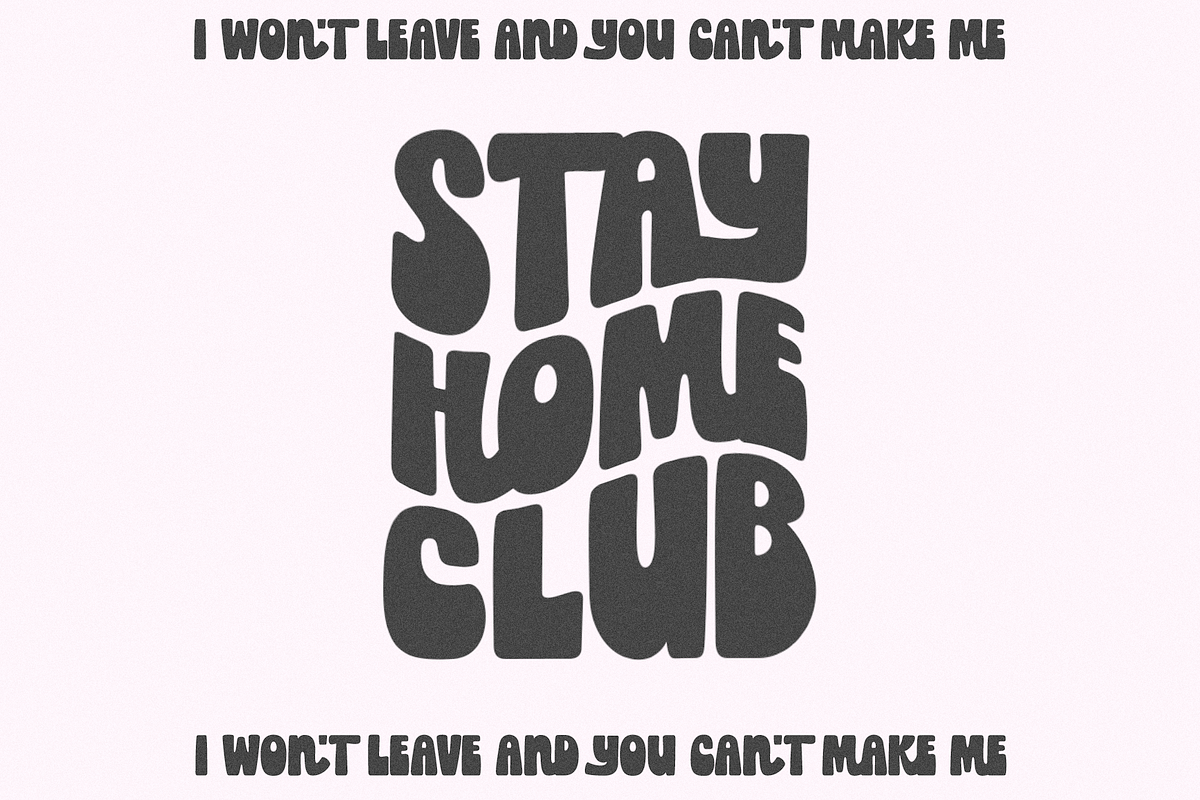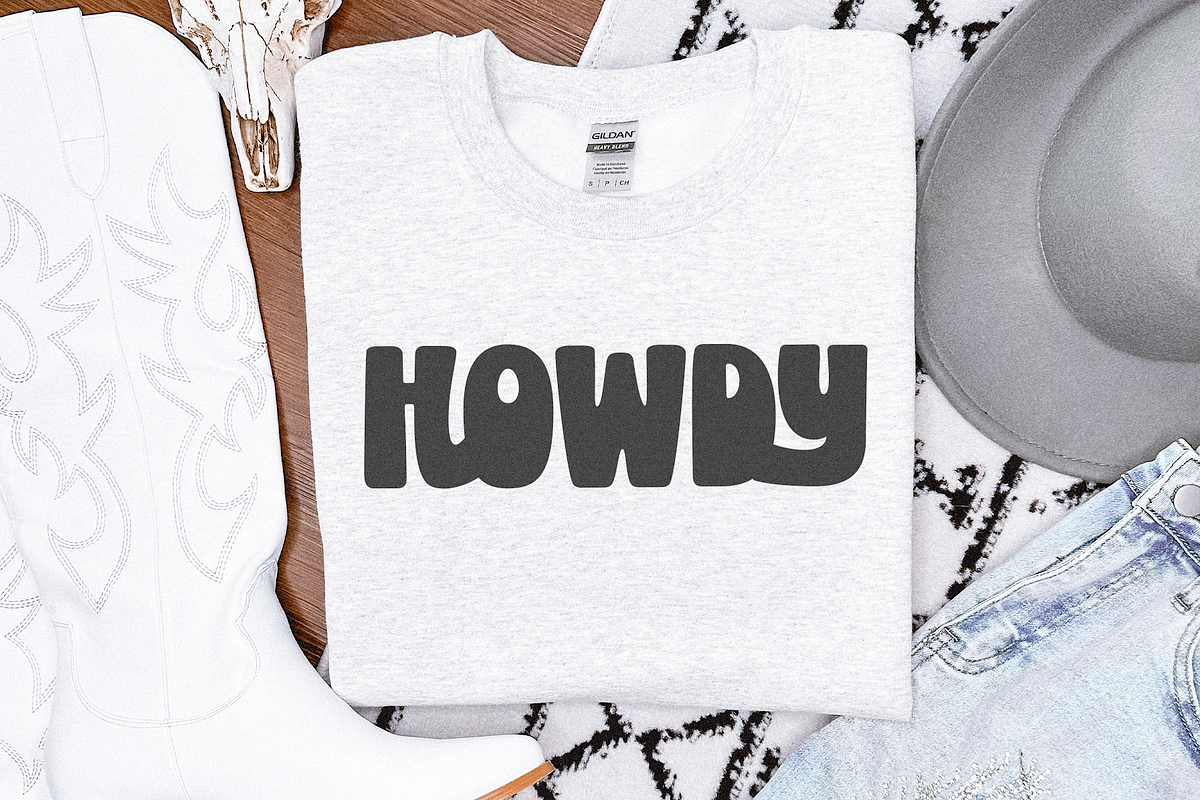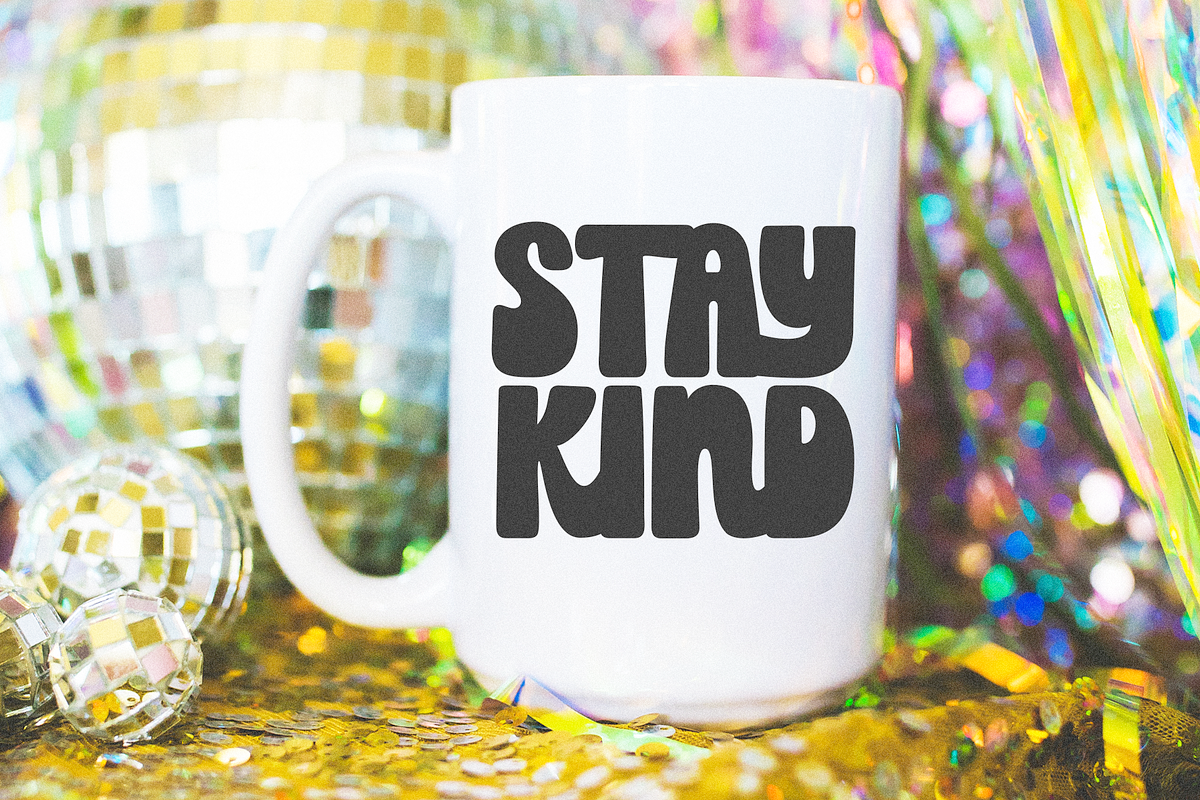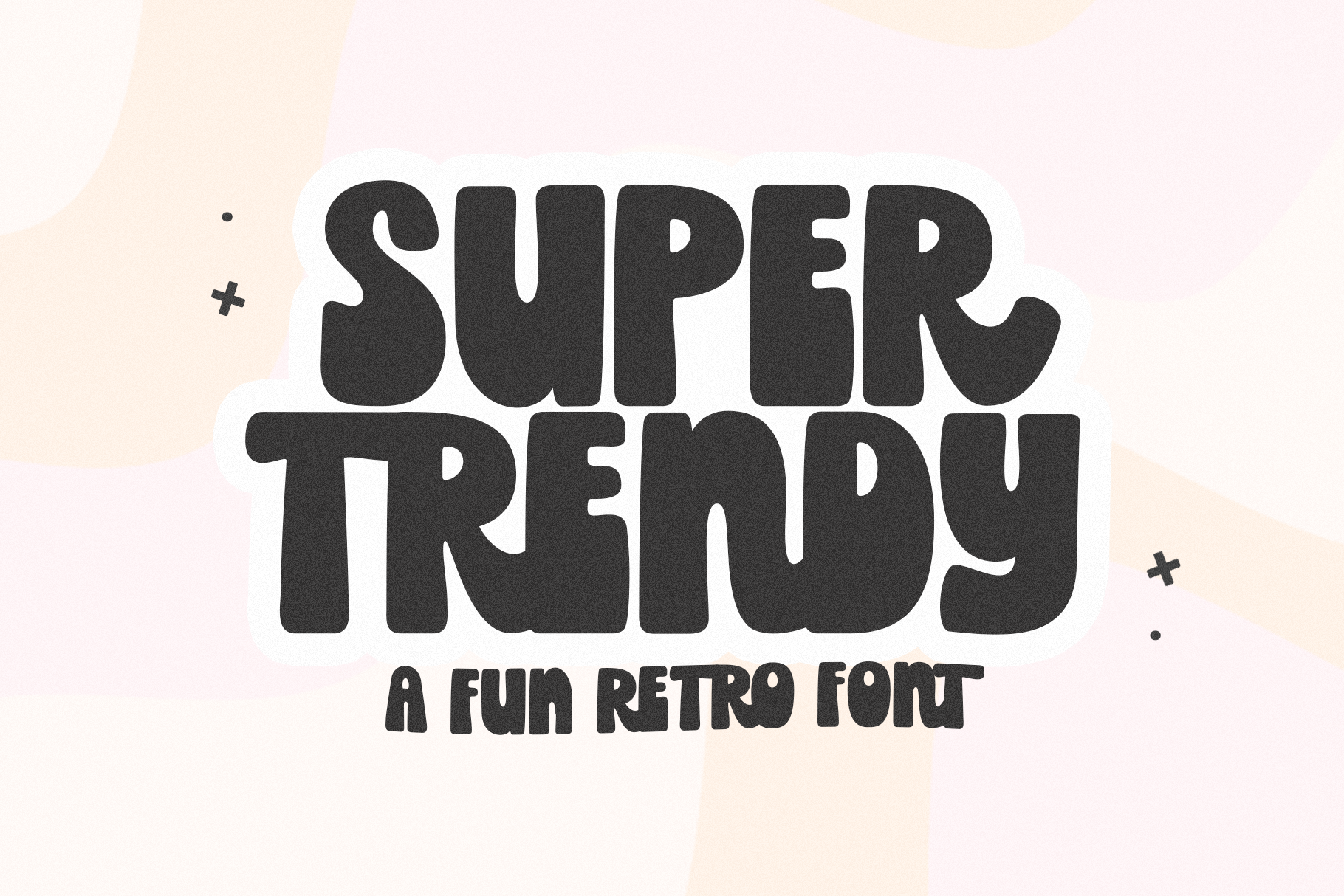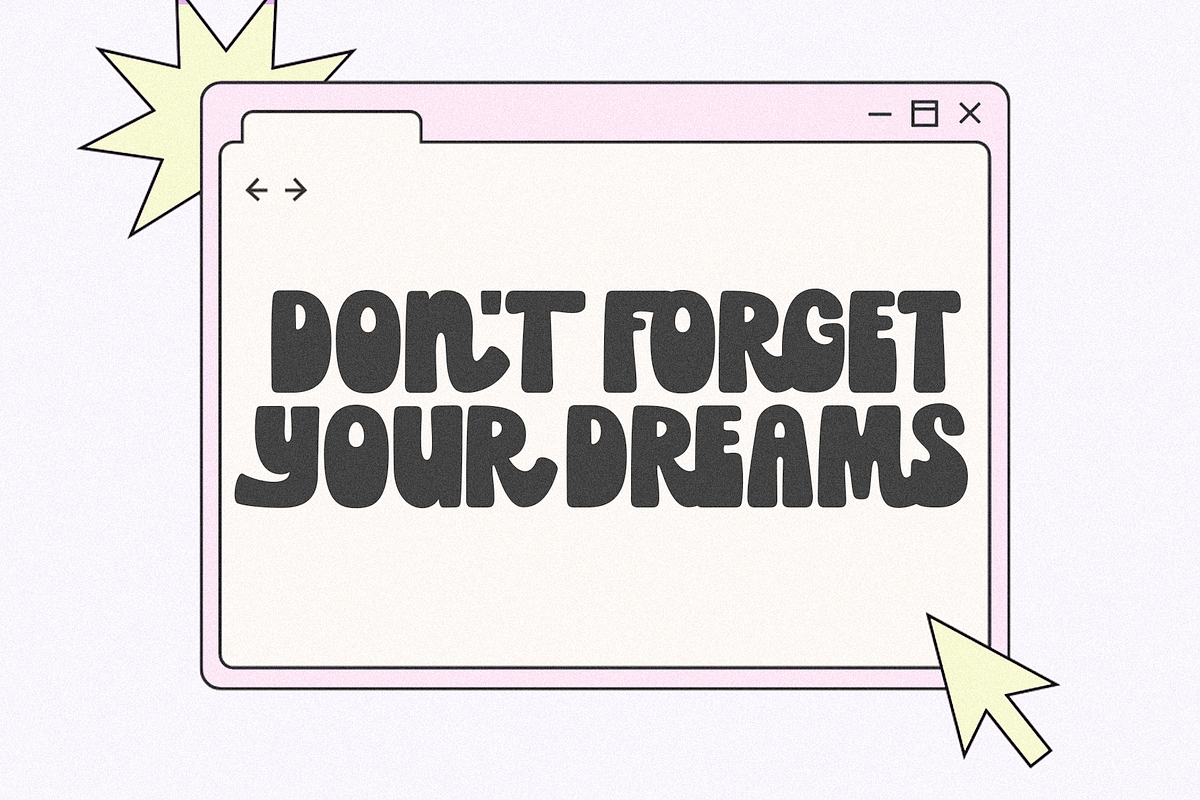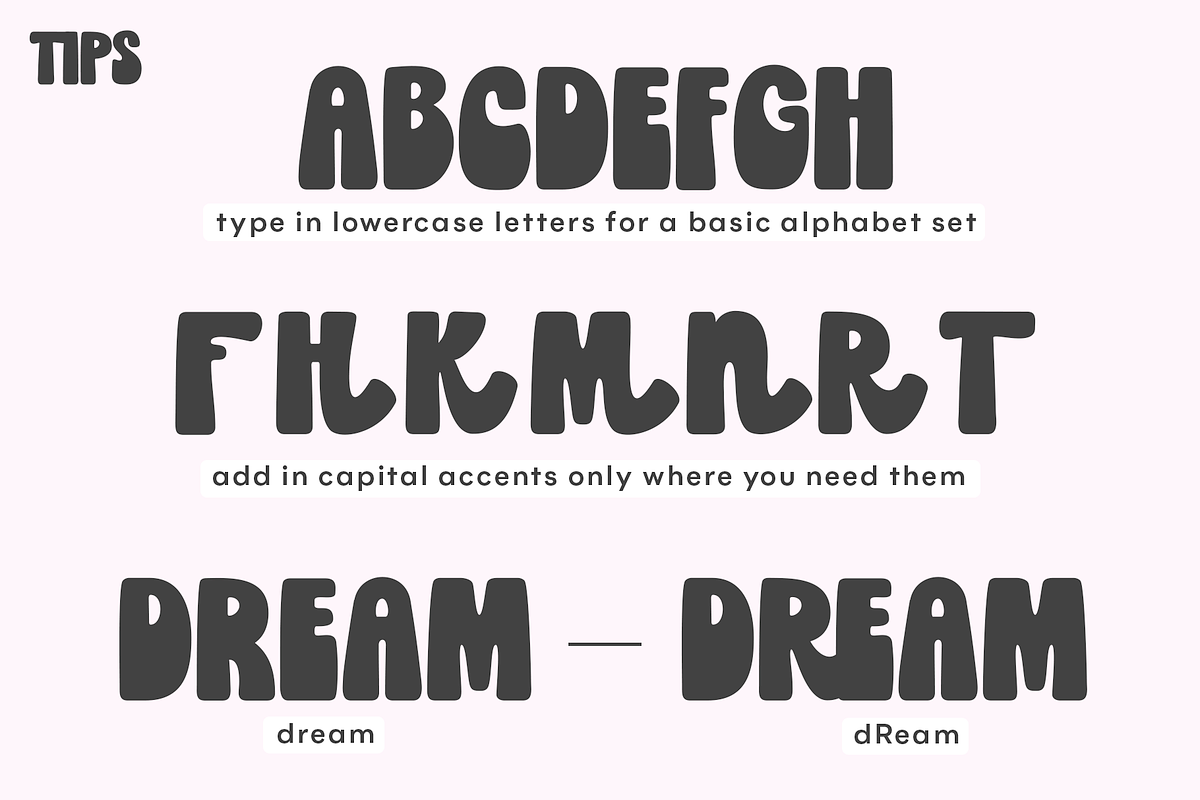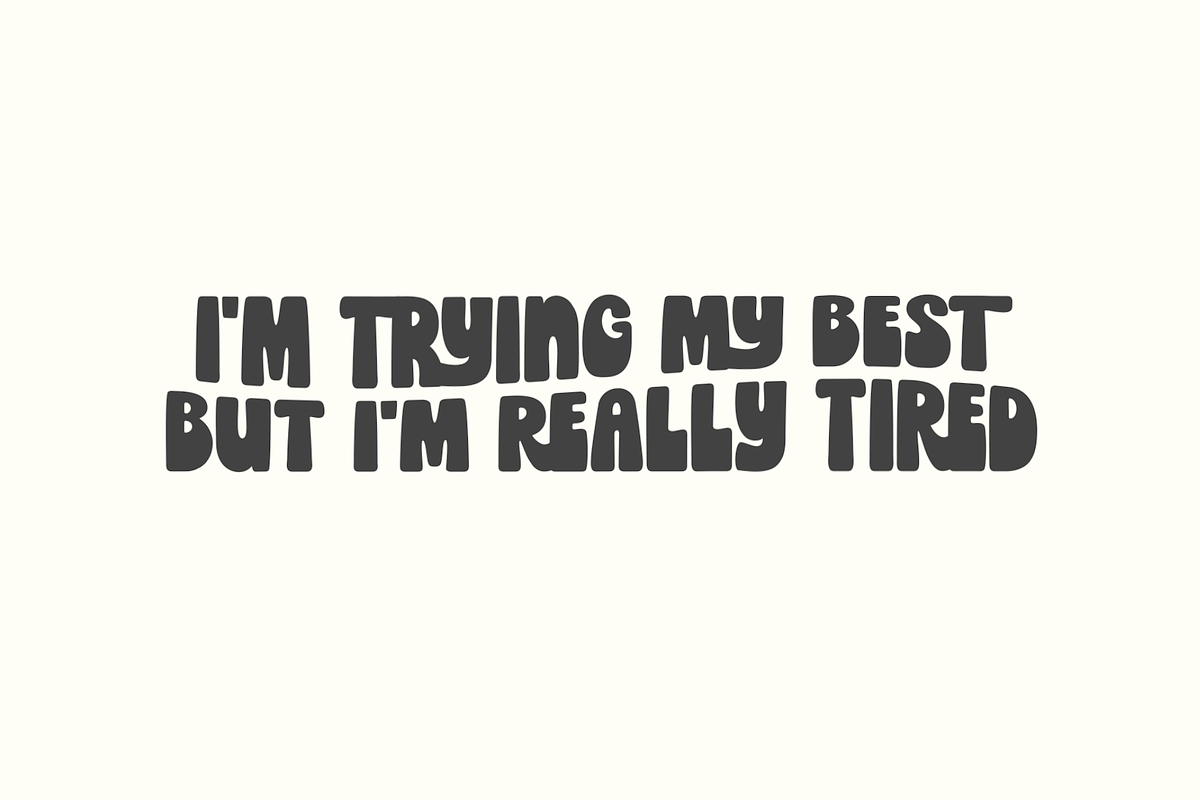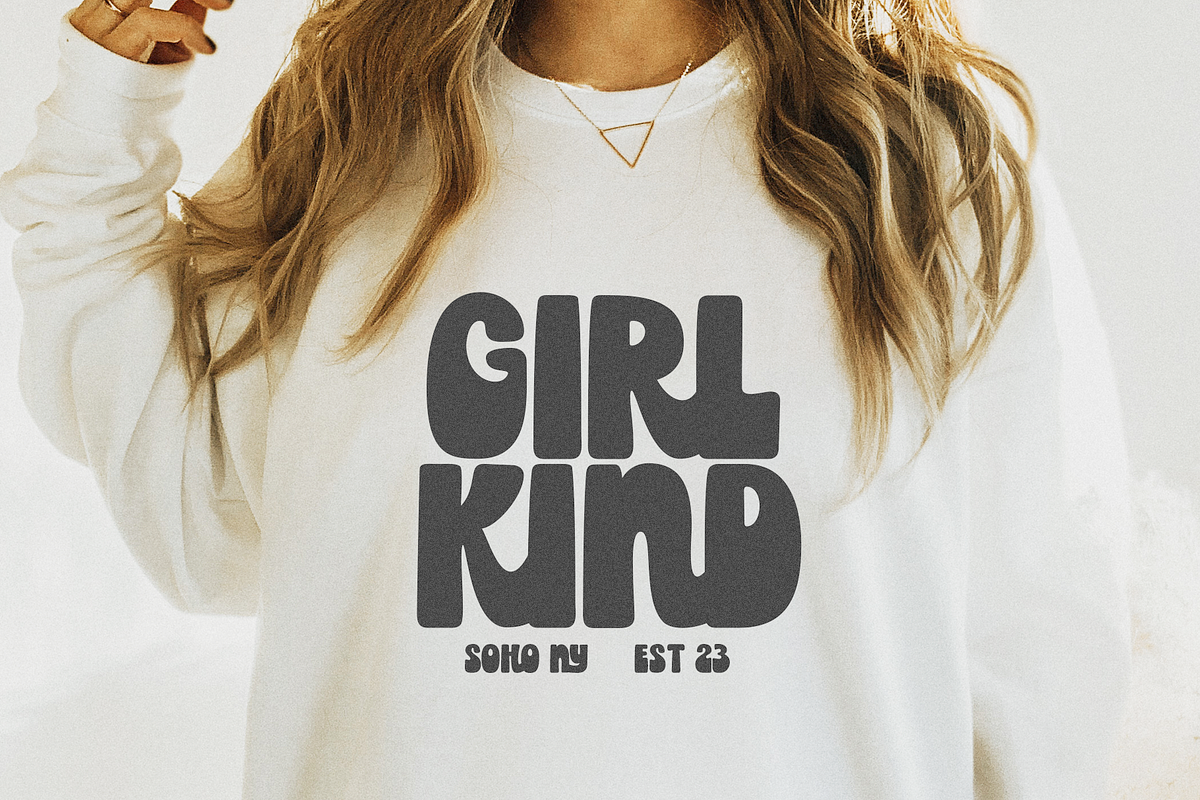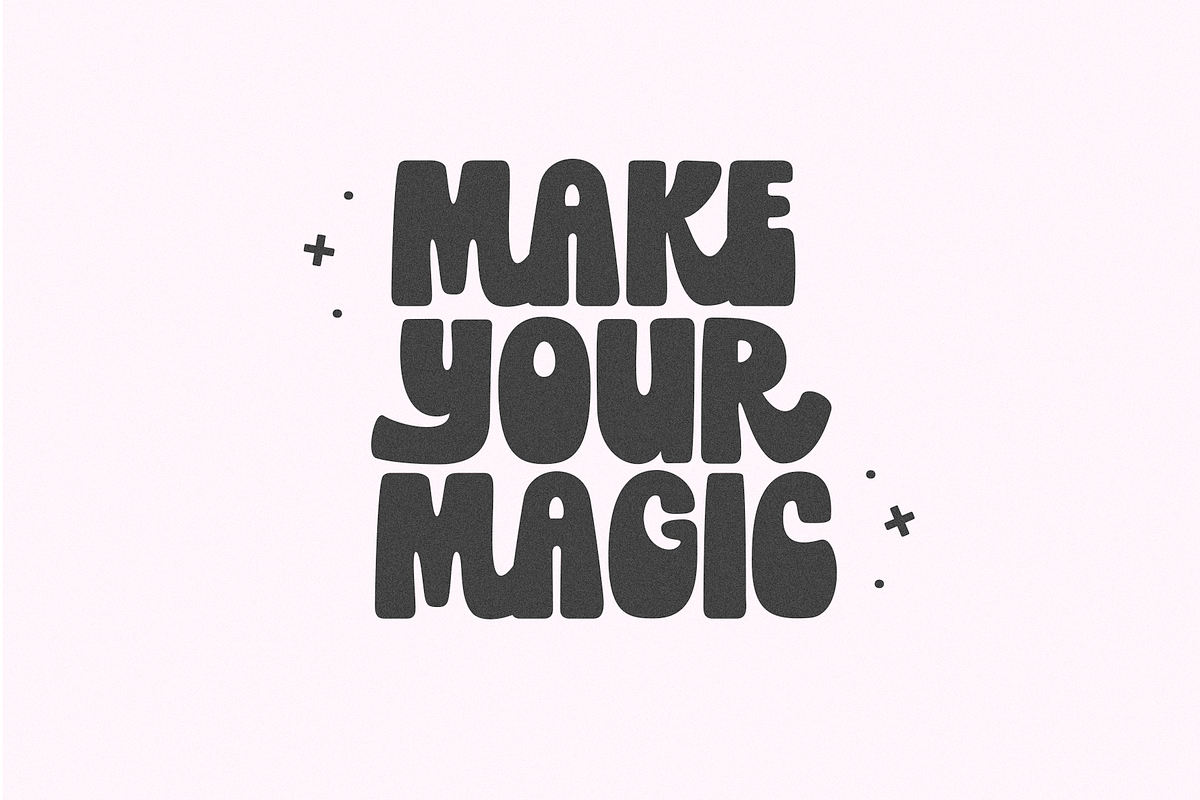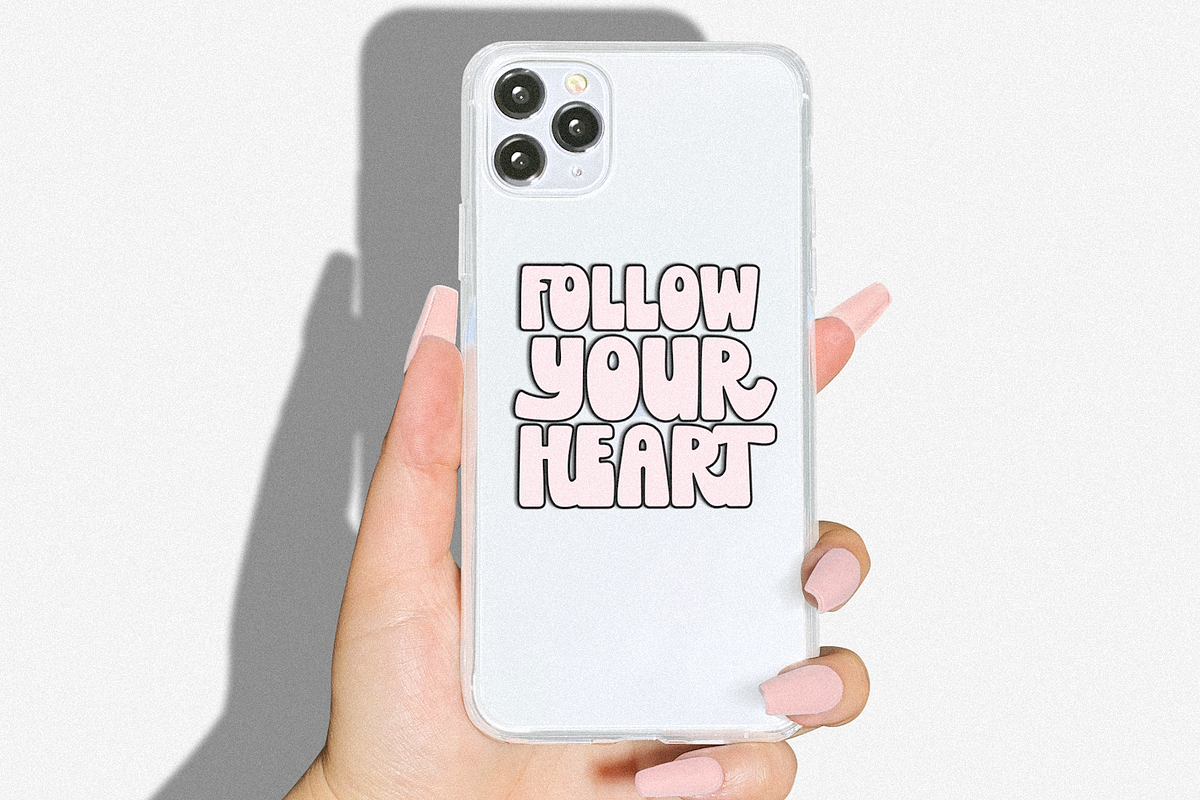
Super Trendy | Retro Font
Super Trendy is a hand-drawn font with a retro look!
Type in all lowercase letters for a standard set of characters.
Mix in special capital letters to create a unique design! (F, H, K, M, N, R, T)
This font is perfect for retro designs, svg files, cricut projects, shirts, mugs, stickers and more!